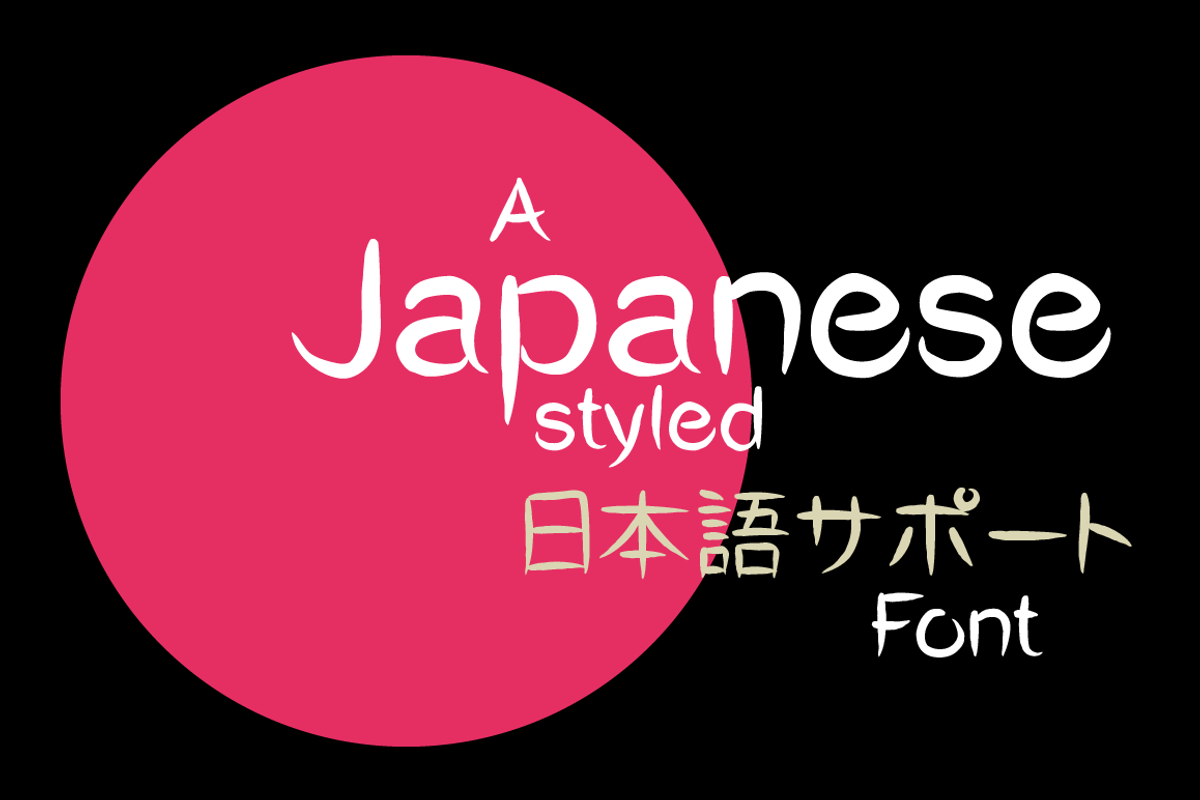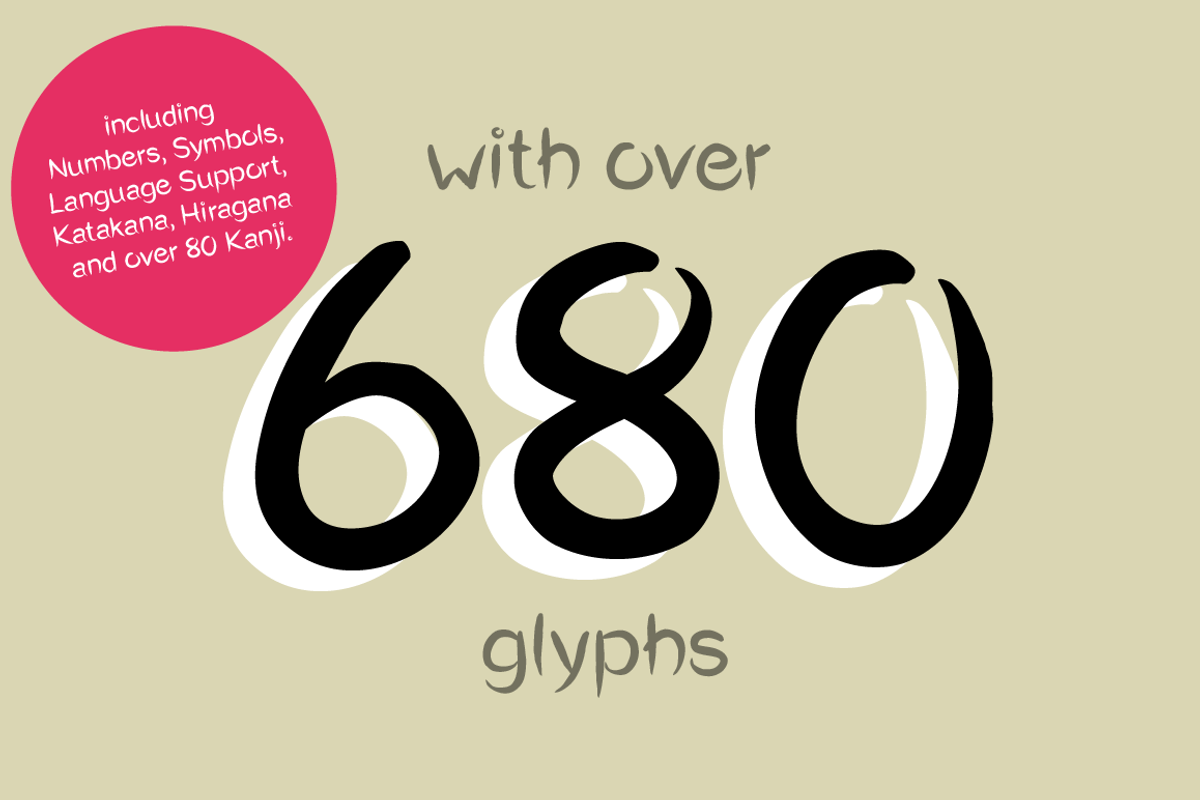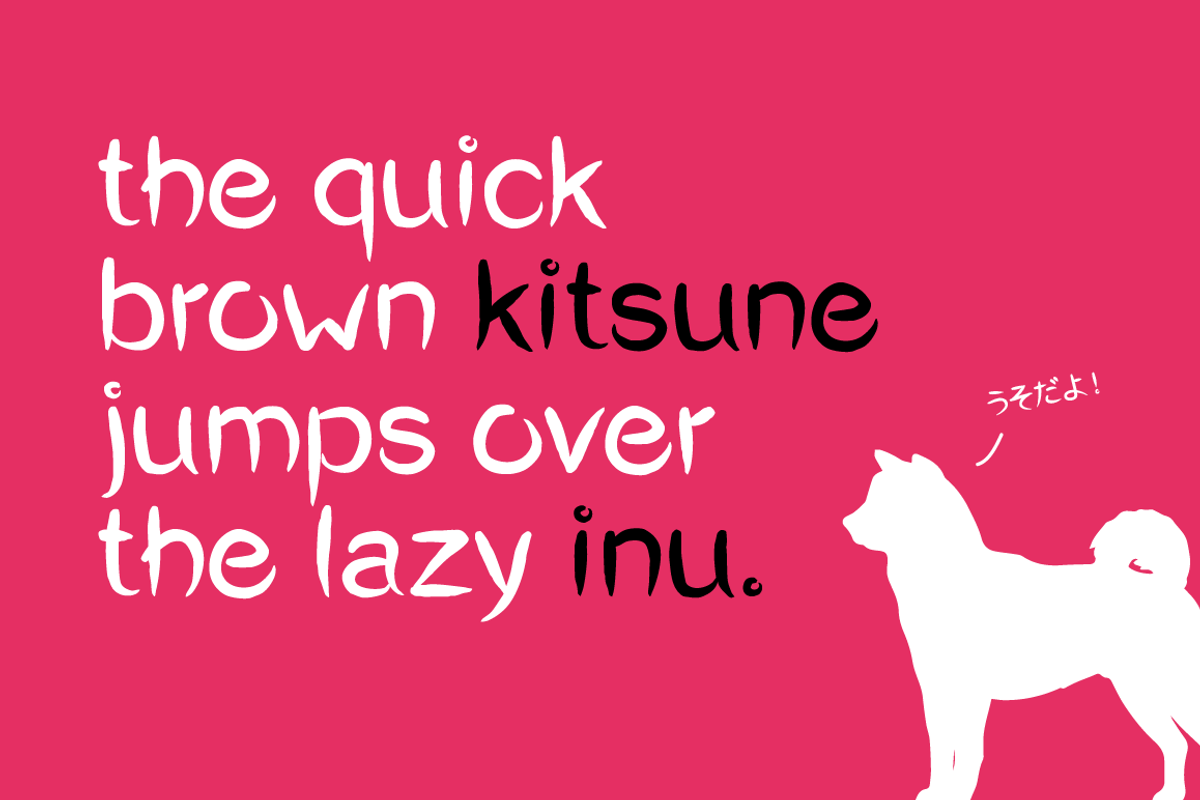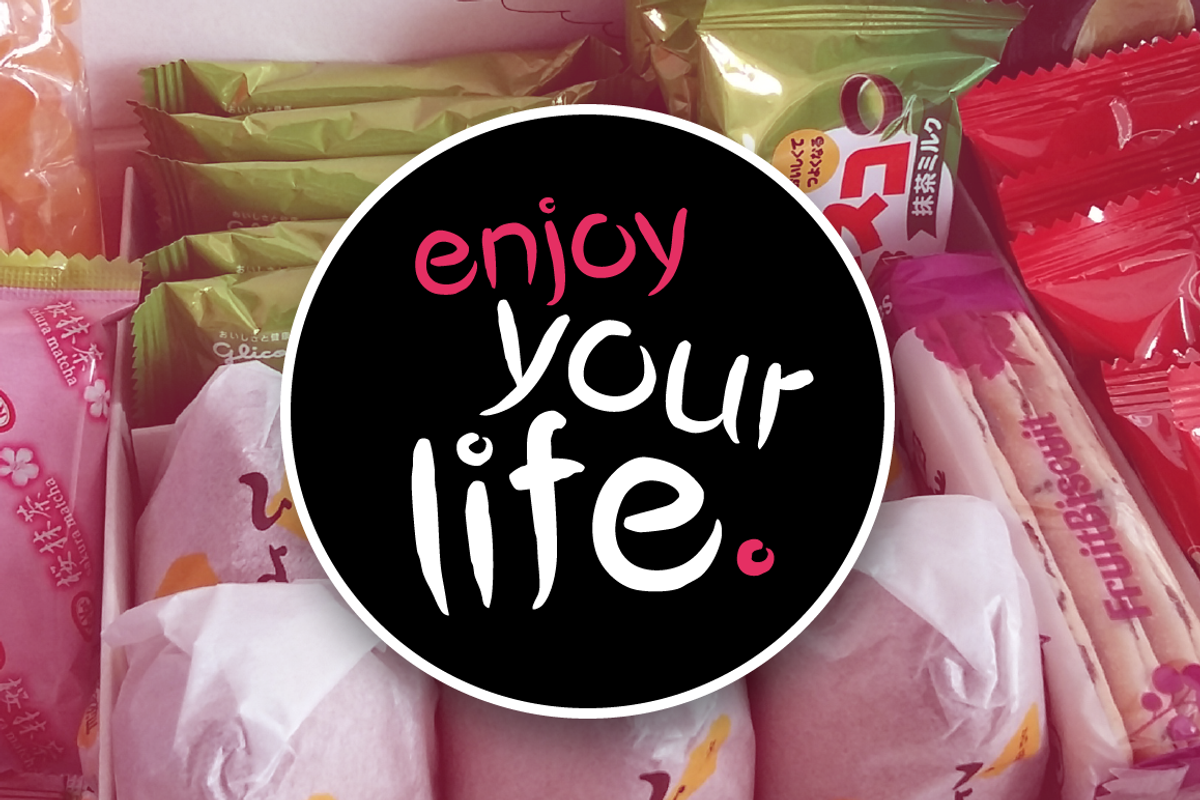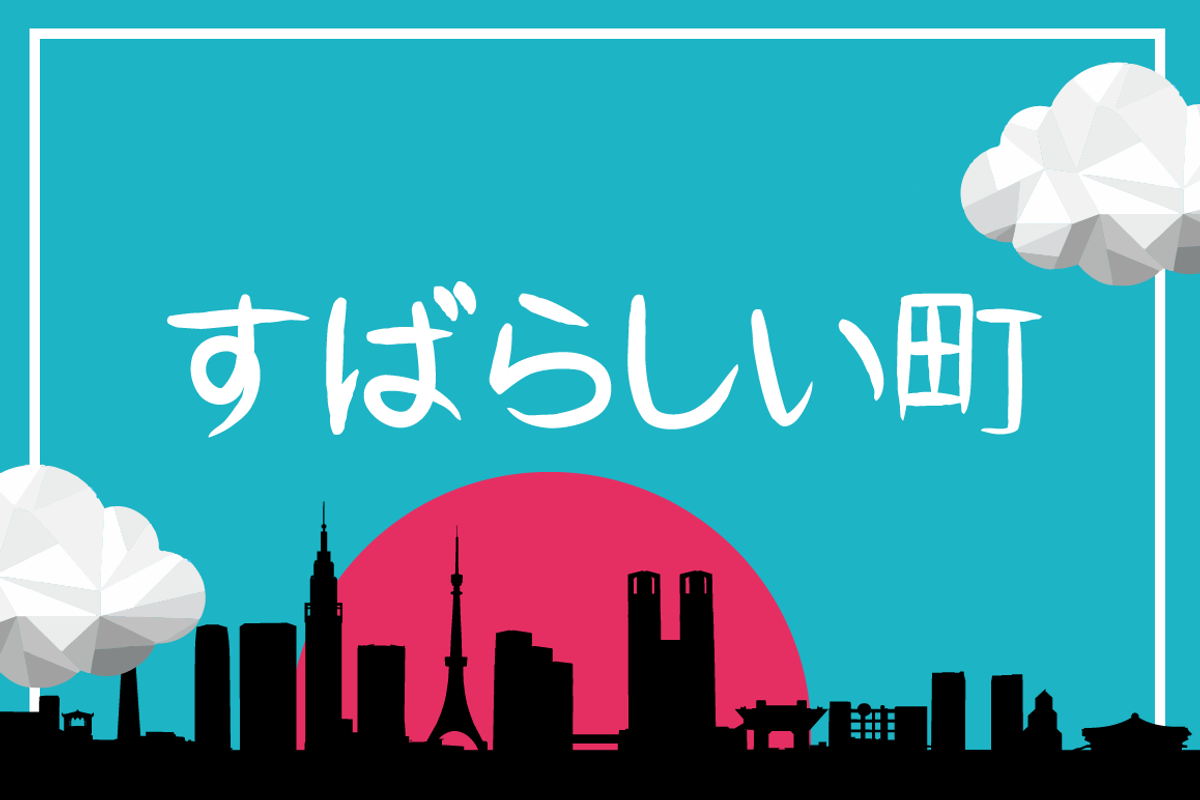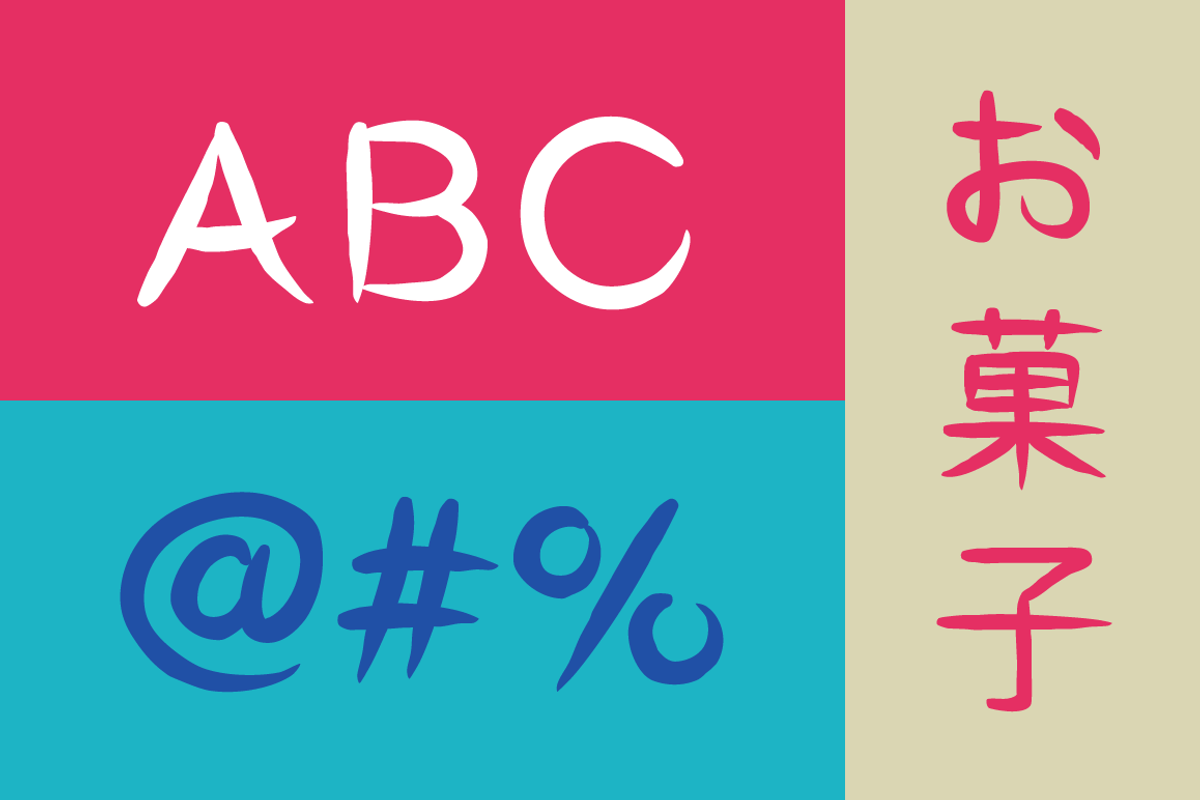
Okashi シ Typeface
Meet Okashi, our first font that supports Japanese!
The more than 680 glyphs are designed by our new team member, who always had a great passion for the Japanese culture. Okashi means “sweets”, which is another passion of her.
The full version includes numbers, symbols, language support for many countries and of course full hiragana and katakana support. It also features 82 Kanjis. The font can be used for many purposes as it has a true, brush styled character.
- The full version includes numbers, symbols, language support for many countries and of course full hiragana and katakana support.